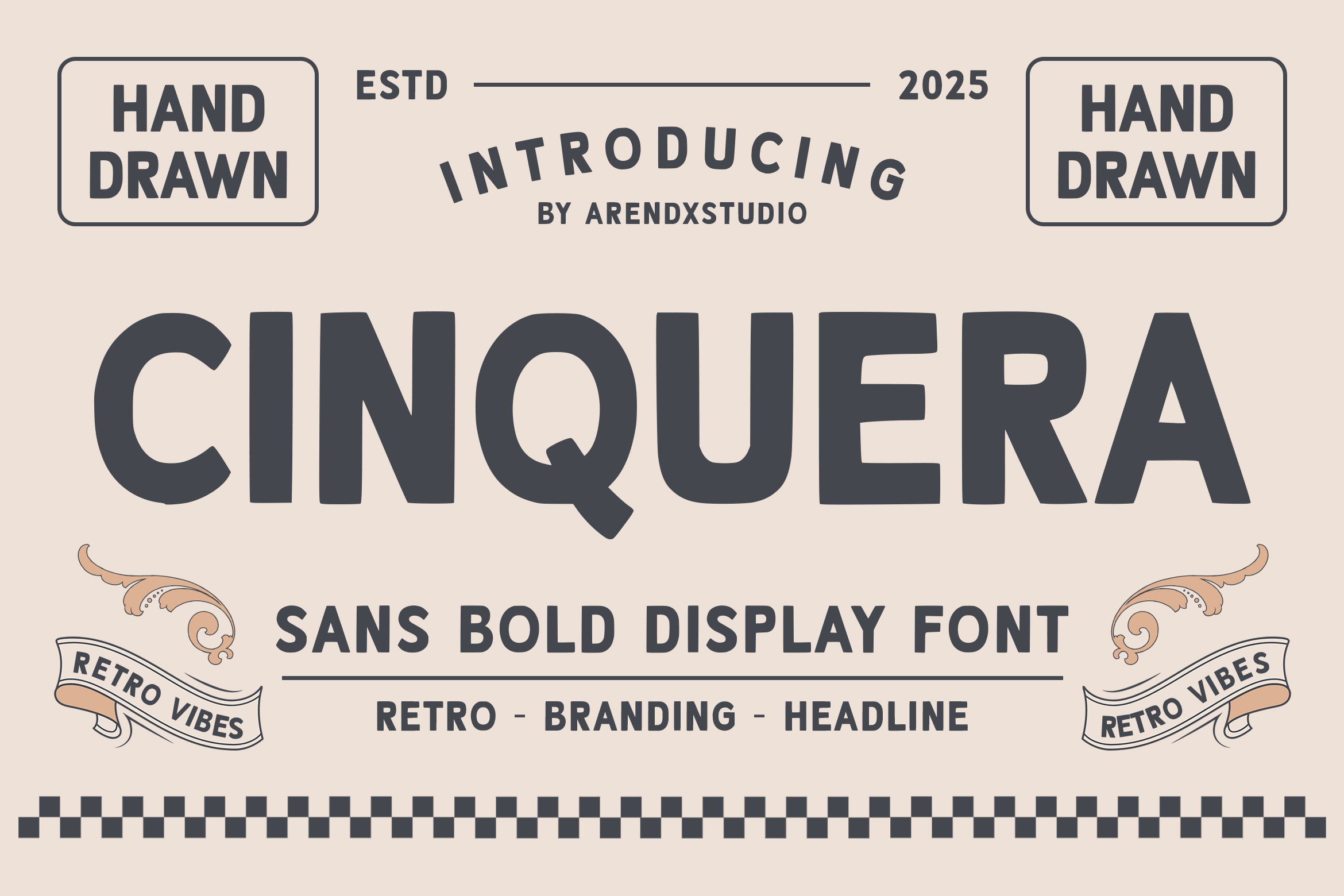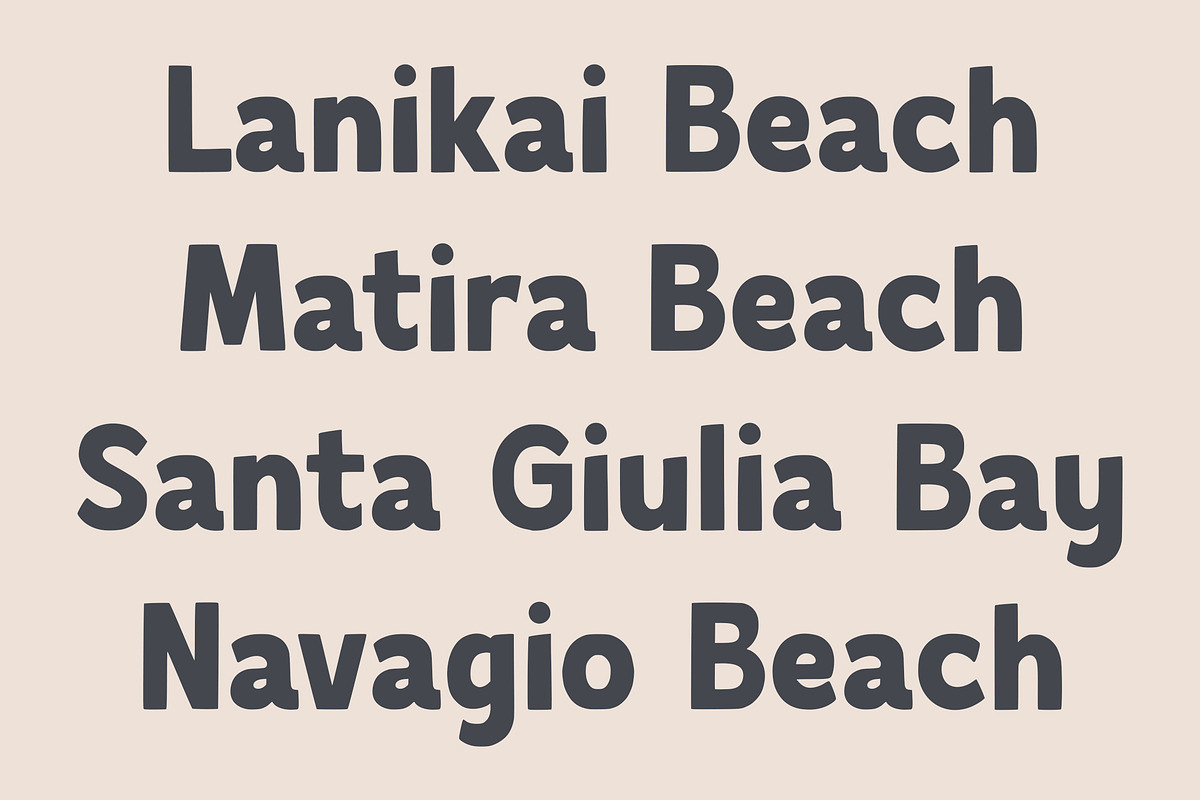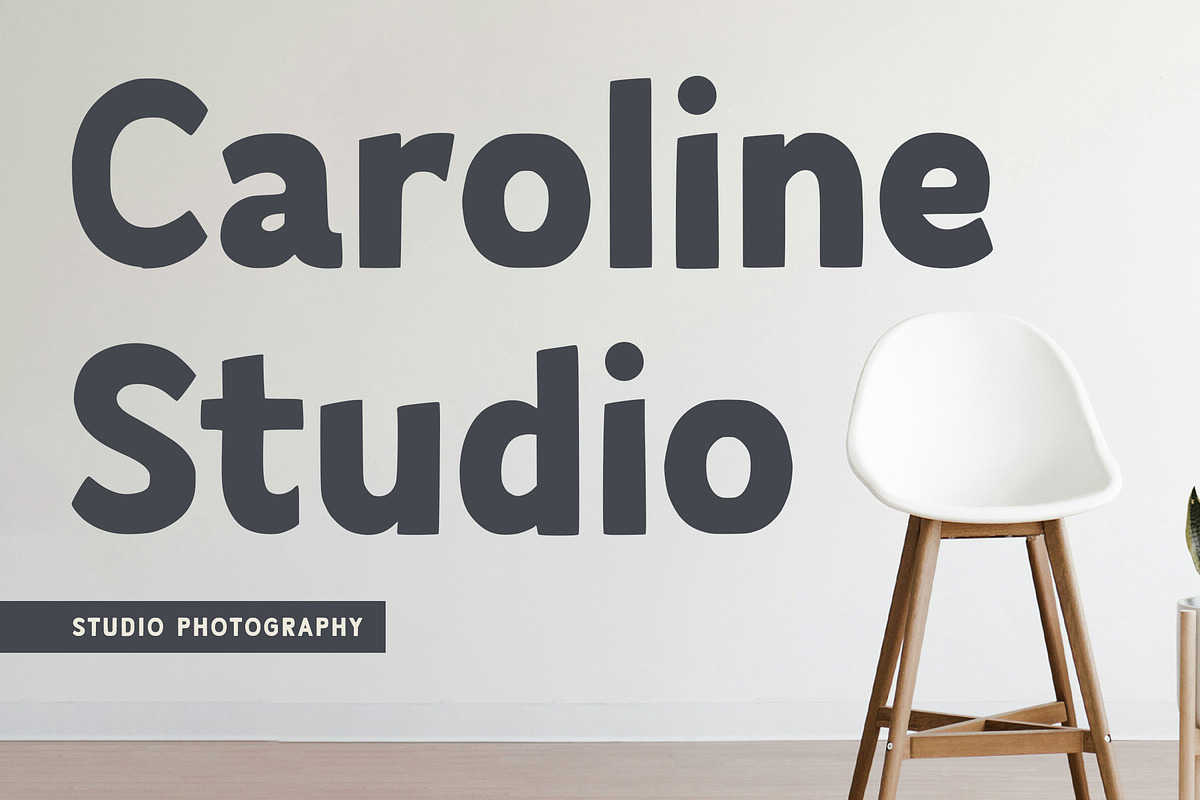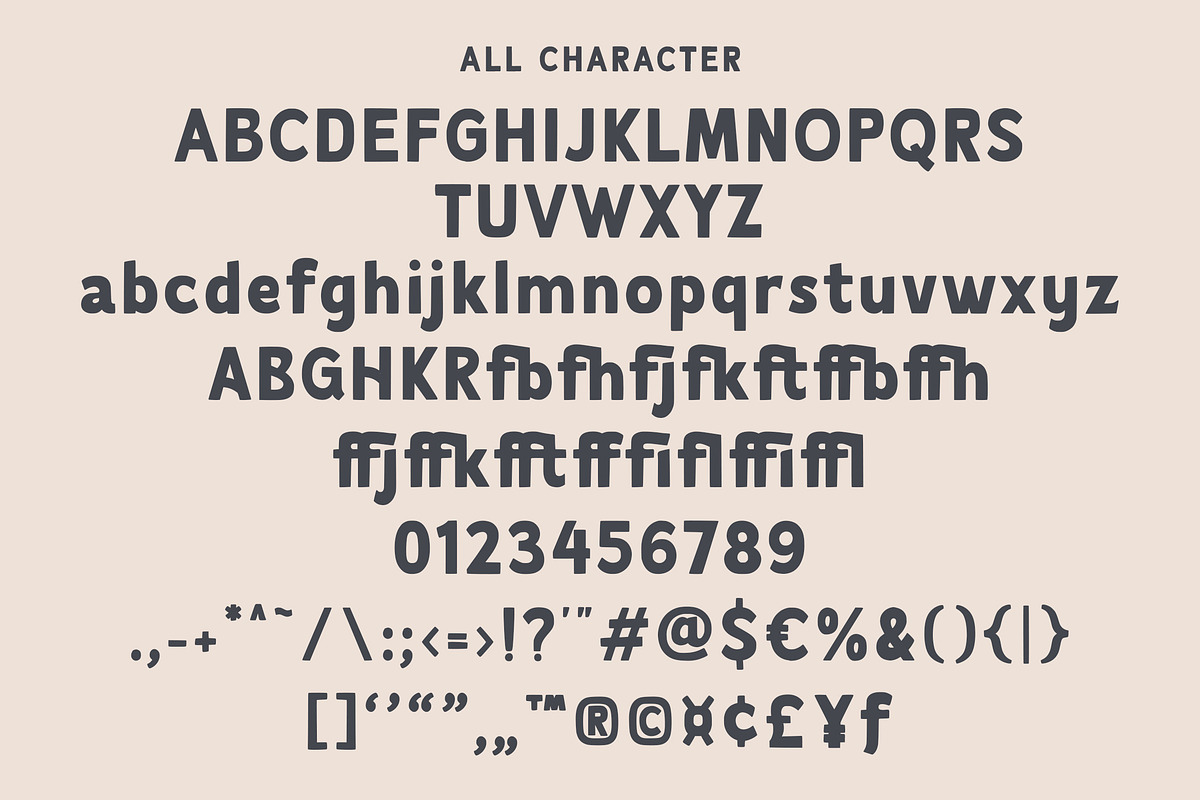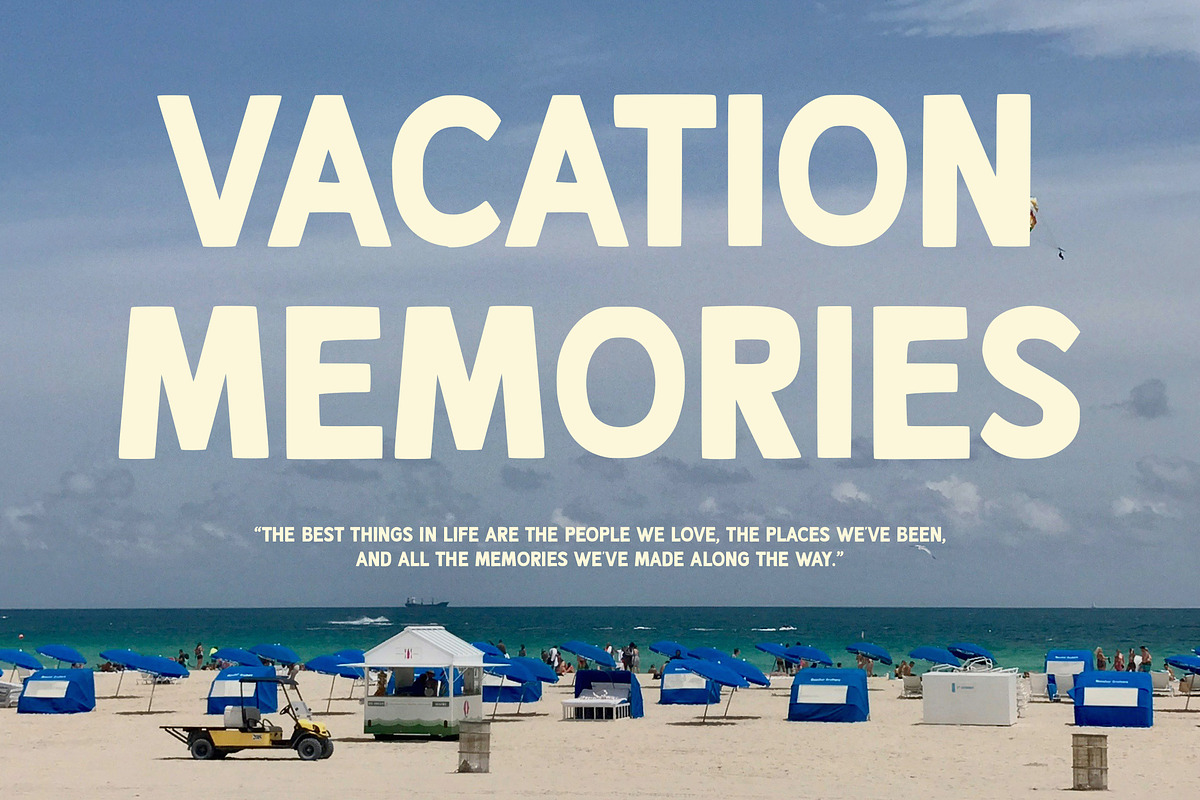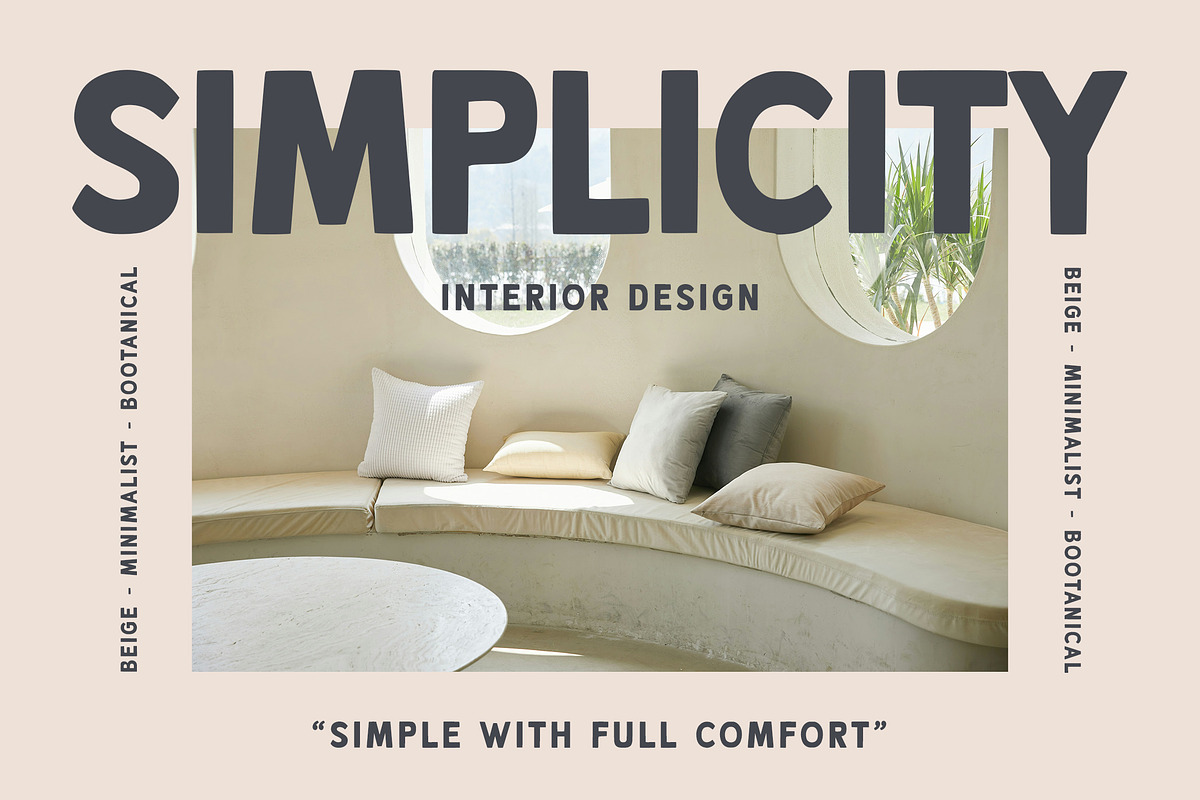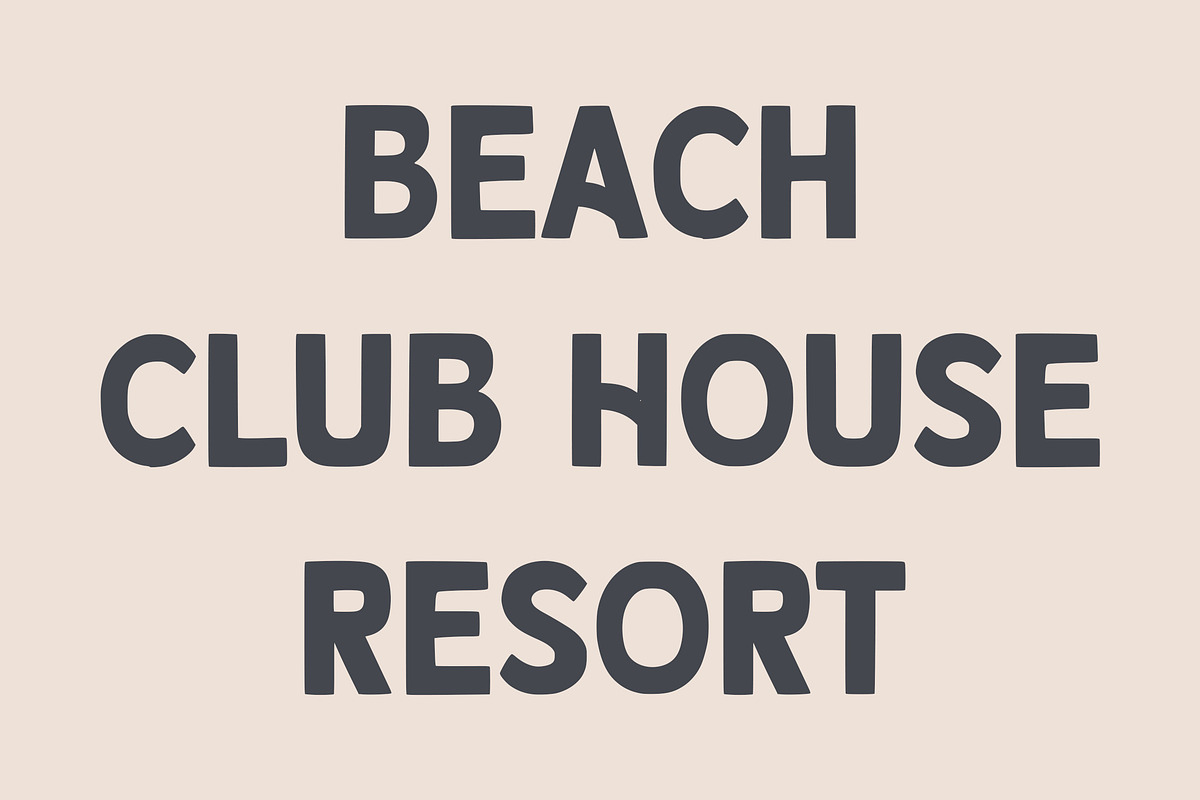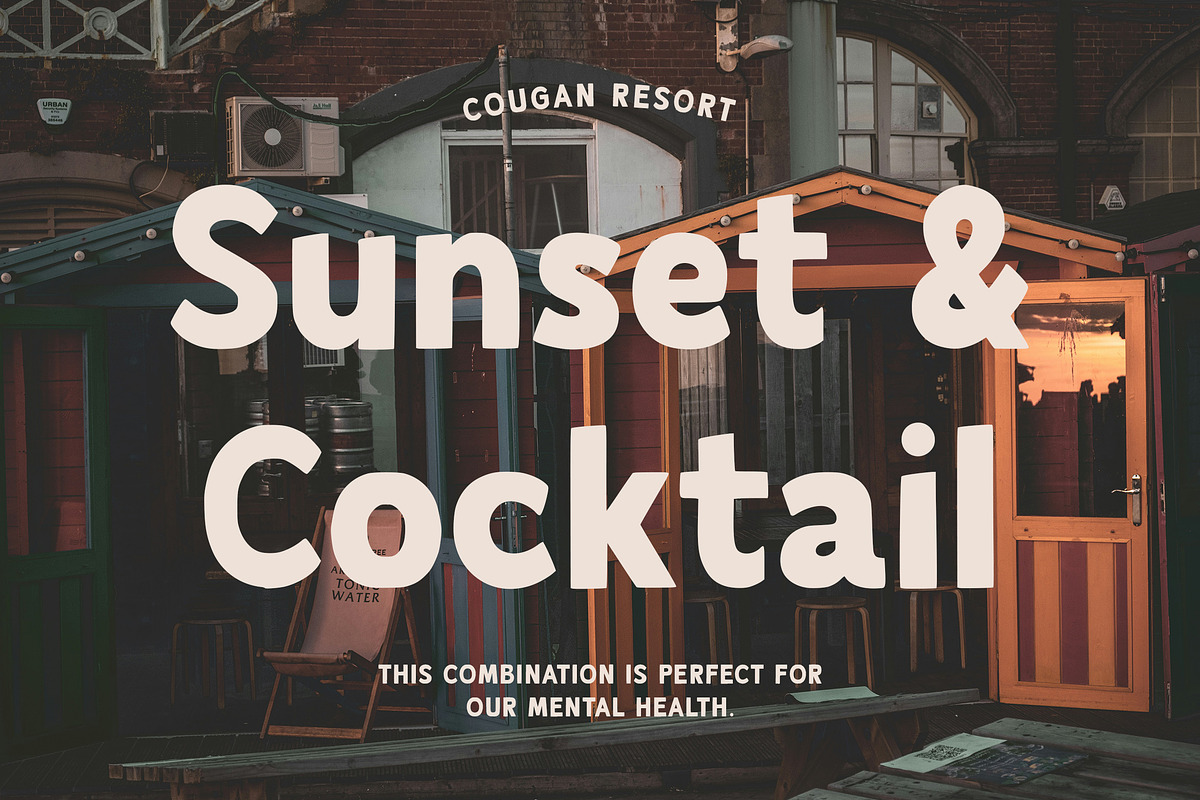
Cinquera – Sans Bold Display Font
"Cinquera" – Sans Bold Display Font
Cinquera is a bold and expressive sans-serif display font designed by Arendxstudio. With its clean lines and strong structure, this hand-drawn font delivers a perfect balance of retro charm and modern impact. Ideal for headlines, logos, posters, and branding projects, Cinquera offers a unique personality that stands out in any layout.
Crafted with retro vibes and a bold presence, Cinquera is a great choice for projects that require clarity, power, and a touch of vintage flair. Whether you're designing a brand identity or a standout title, this font delivers both readability and character.
Features : Uppercase and lowercase characters